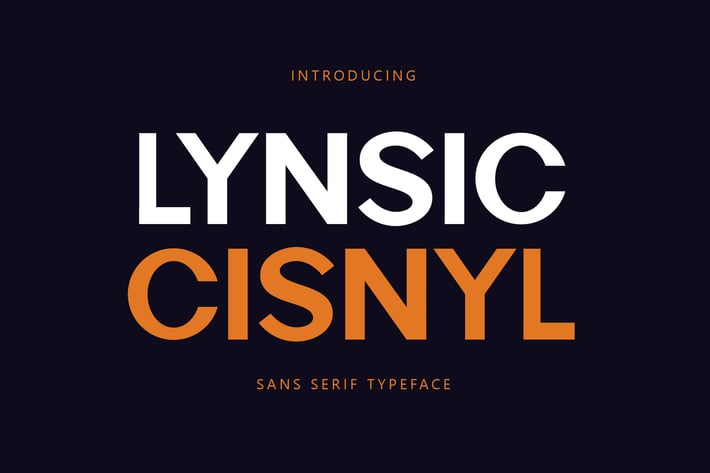
Lynsic Cisnyl - Sans Serif Font
Lynsic Cisnyl - Sans Serif Font. It has a elegant, classy look and beauty. Itβs a great font for fashion,
apparel projects, signature, album cover, logo, branding, magazine, social media, & advertisements,
but also works great for other projects.
- The perfect font choice for powerful projects - watermarks, signatures, photography, logos, business cards, quotes,
album covers.